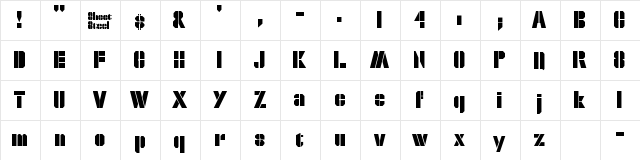
DXS Sheet Steel Regular
Design Context for DXS Sheet Steel Typeface
DXS Sheet Steel takes a measured approach to typography — its balanced proportions and neutral character make it a reliable workhorse for both digital and print work.